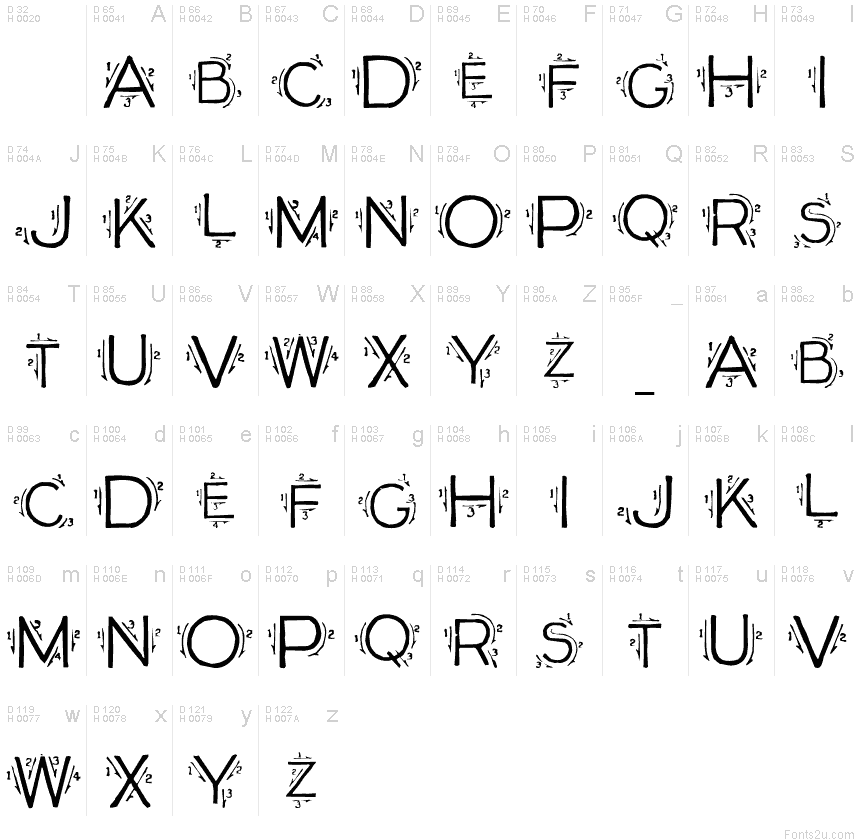
The Best Single Stroke Fonts Ideas
You could laser etch this (and some people do) but you’re now outlining the letters instead. It features a gorgeous, handwritten script font plus a san serif font. Looking for single line fonts?
You Can Export Fonts That Has A Single Stroke For Each Shape Intended For Use With Cnc Engraving Machines.